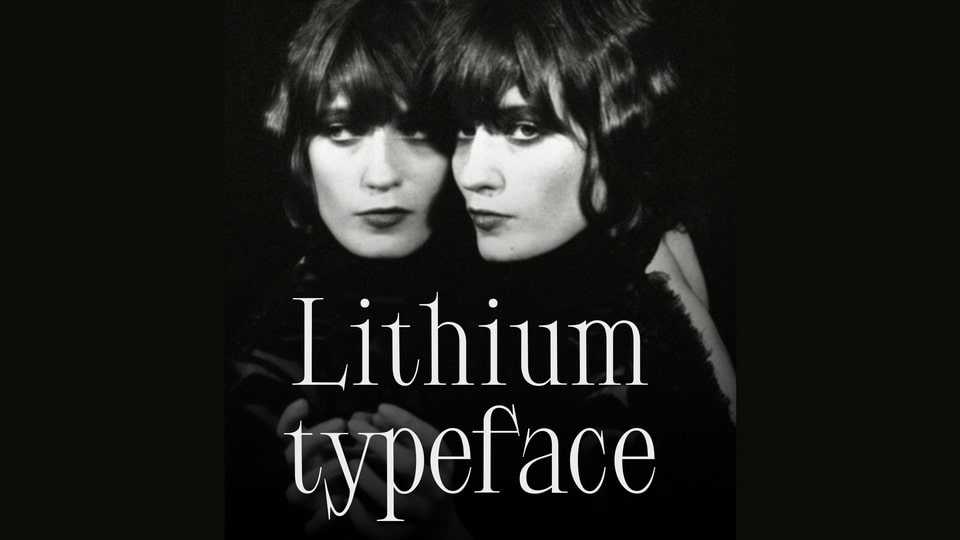
Download Lithium font, an elongated serif typeface with distinctive, pronounced serifs and active callouts. Lithium combines rigor, but at the same time it is able to show its sharp character.
Designer: Yana Kolesnichenko